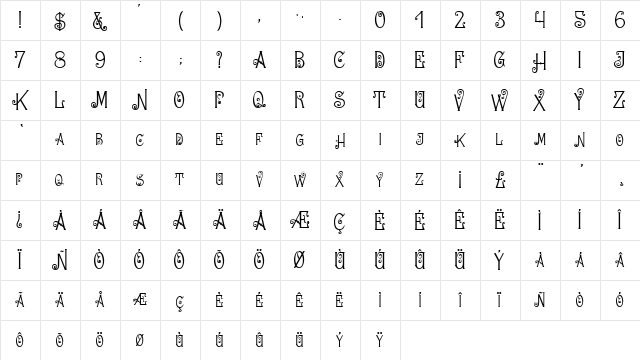
Typornament Prague Regular
Foundry: Yves Michel
Designer: Yves Michel
Design Context for Typornament Prague
Typornament Prague is built around its visual character rather than neutral utility - its distinctive forms are designed to make an impression at display sizes.
Font Pairing: Pair with a clean neutral sans-serif for body copy to let Typornament Prague's character lead without overwhelming the composition.
Pro Tip: Use Typornament Prague exclusively at display sizes - it was designed to be seen, not read at length. Let a neutral companion handle body copy.